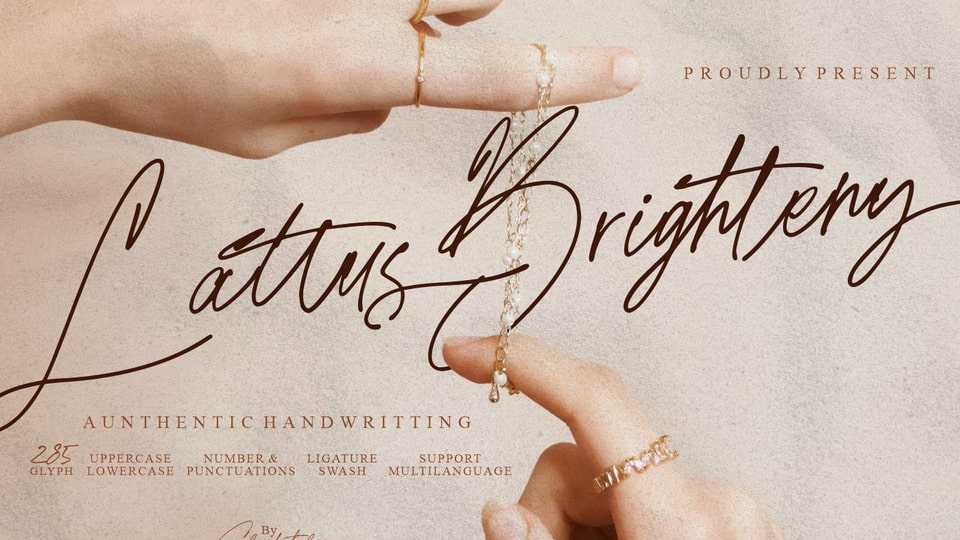
Lattus Brighteny Font › Fontesk – Download Grátis
Download Lattus Brighteny font, a typeface with ink effect and natural flow. Handwritten original font that looks luxurious and beautiful.